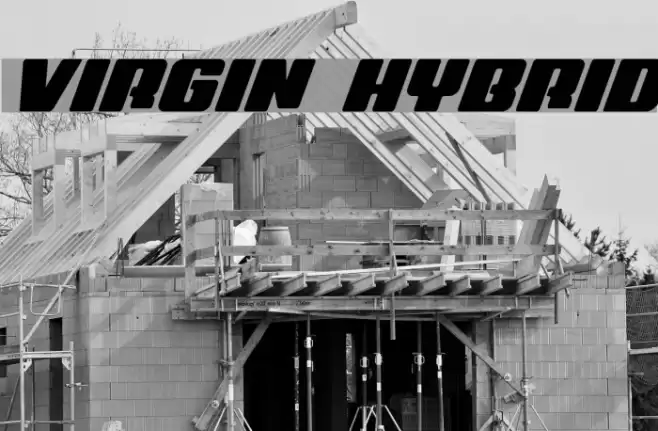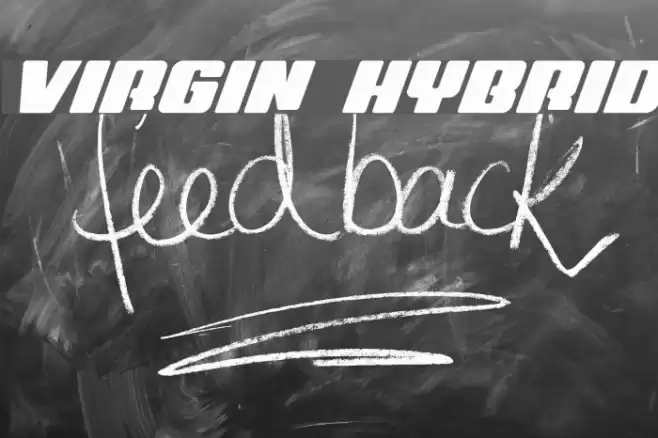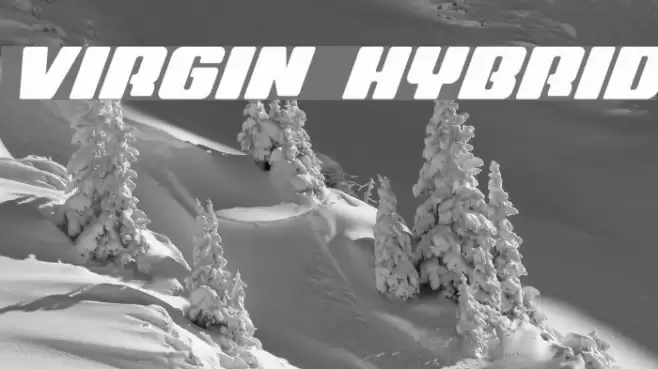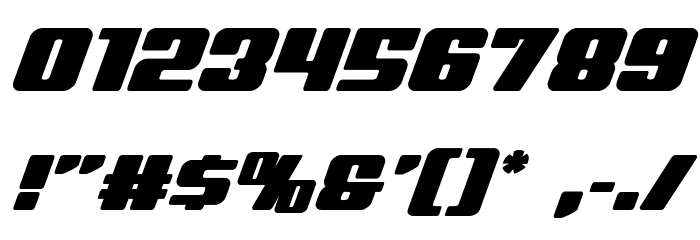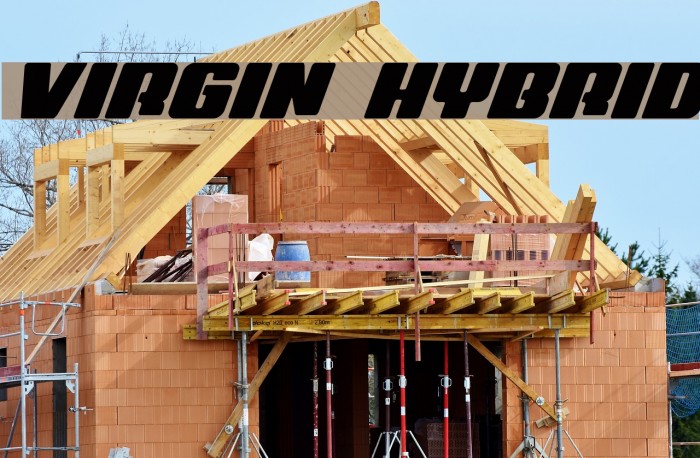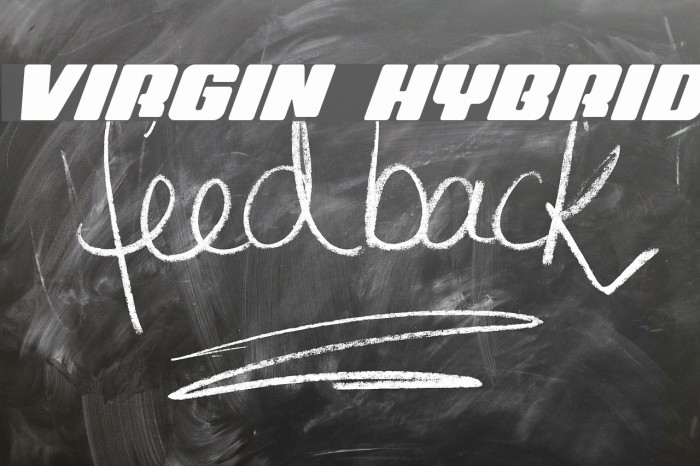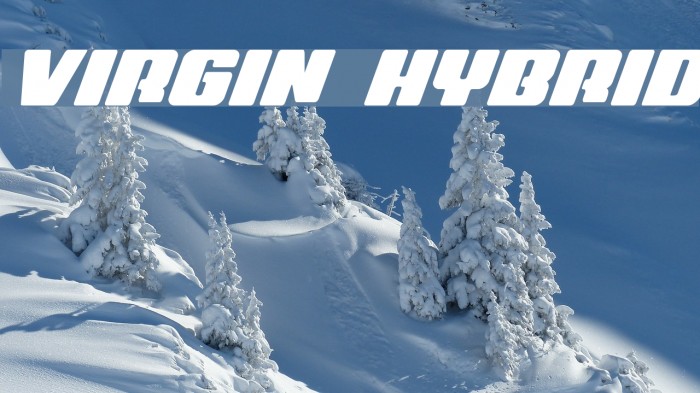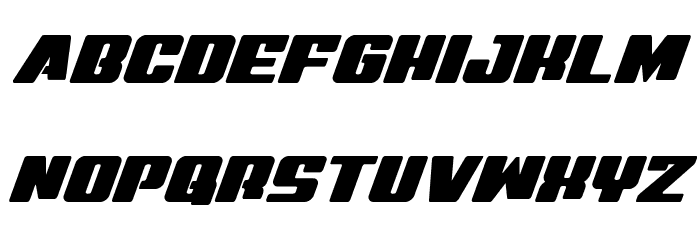
Virgin Hybrid Font
Virgin Hybrid Description
This font features a bold and dynamic style with a strong presence. The characters are slightly slanted, giving a sense of motion and energy. Each letter is robust with thick strokes, creating a powerful visual impact. The design is consistent across uppercase and lowercase letters, as well as numbers and special characters. The font's boldness and angularity make it suitable for attention-grabbing designs. The spacing between characters is tight, enhancing its compact and cohesive appearance. This font is ideal for projects that require a modern and assertive look.
A bold, dynamic font with a slanted, energetic style from Uncategorized fonts.
- Proposed Projects: Ideal for sports branding, action-themed posters, and dynamic logo designs.
- Character Spacing: Tight